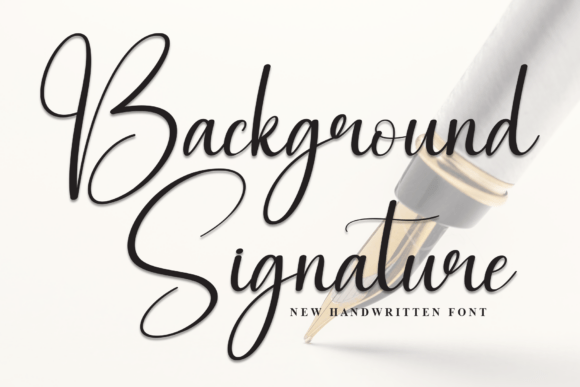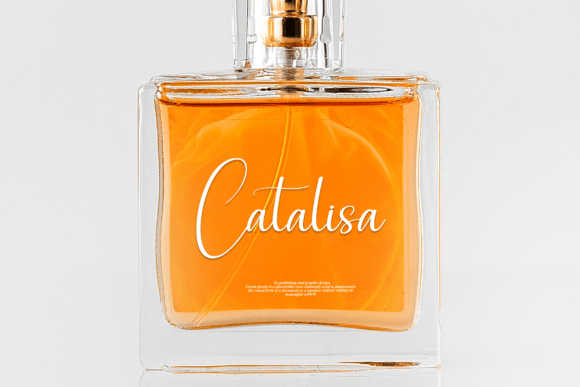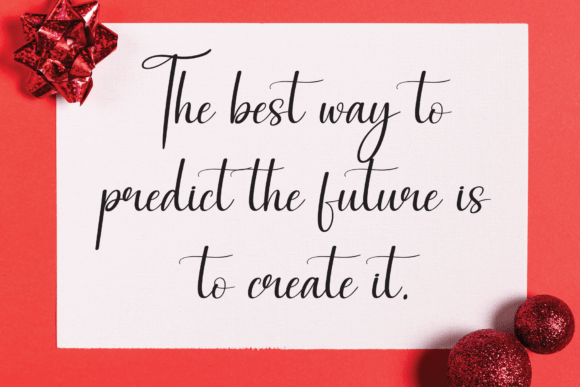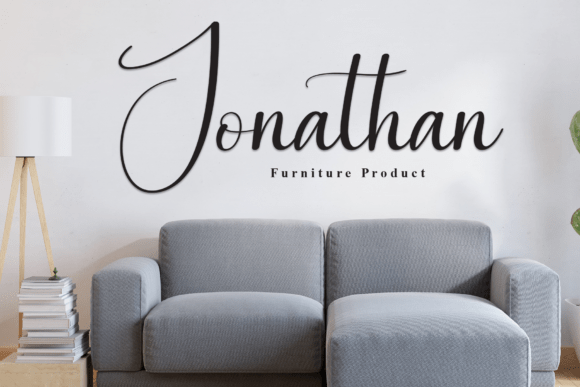
About the Background Signature Font
Get ready to be inspired by Background Signature Font, a fresh and dynamic typeface for modern creators. special creative products for you, our products will give you an extraordinary experience.
the latest style letters are perfect for wall displays, wedding invitations, social media post logos,
advertisements, product packaging, product designs, labels, photography, watermarks, invitations, stationery,
and any project that requires taste handwriting.
Background Signature Font Usage Examples
Background Signature Font Example